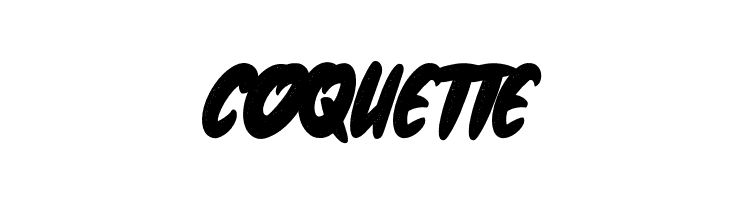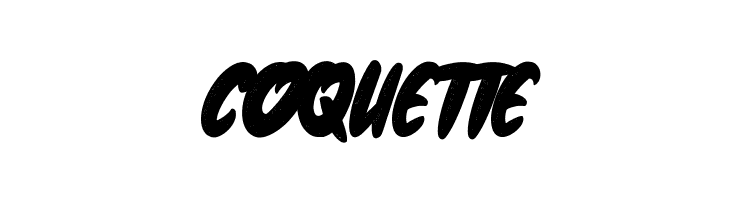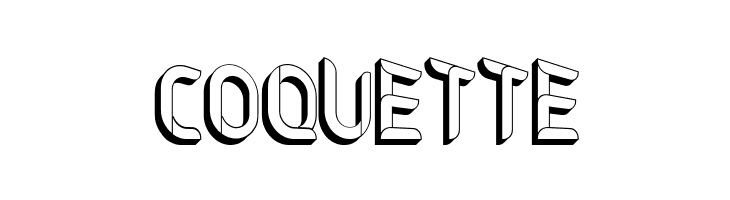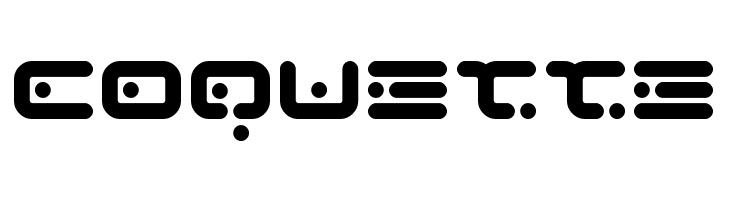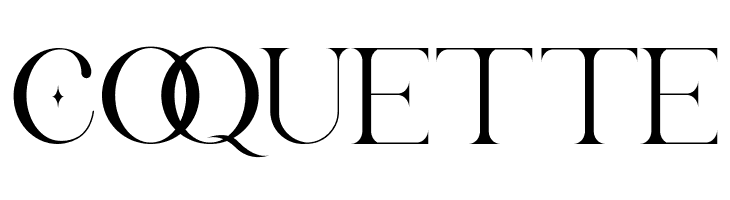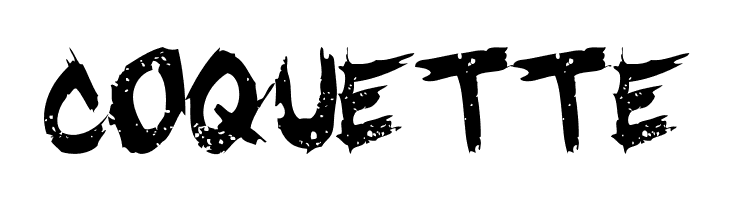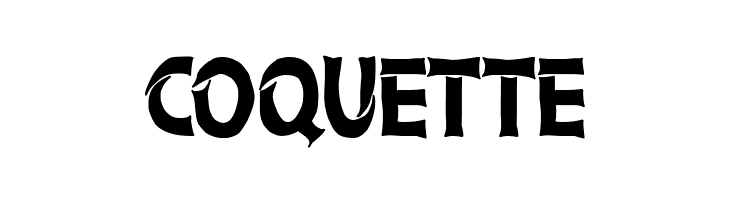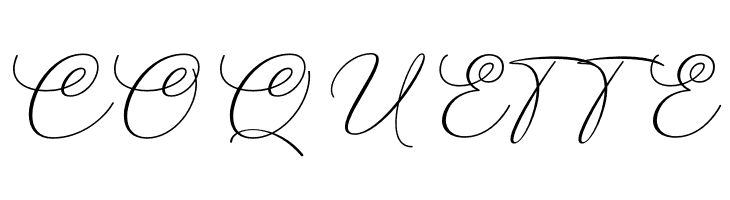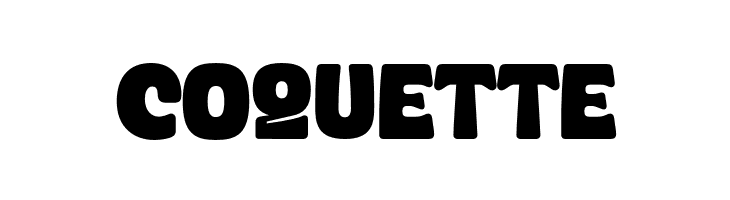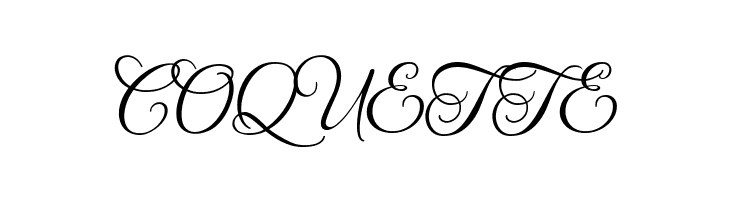
A bold, geometric stencil font with a digital, pixelated style.
A bold, 3D hollow font with a modern, geometric style.
A bold, decorative font with a three-dimensional shadow effect.
A clean, modern sans-serif font with uniform stroke width and balanced design.
Ornate, high-contrast script with decorative swashes.
A decorative, high-contrast script font with ornate swashes.
A bold, edgy font with sharp, angular edges and a distressed look.
A bold, handwritten-style font with dynamic, rounded characters.
A bold, dynamic script font with a handwritten feel.
A bold, distressed font with a grunge aesthetic and jagged edges.
A bold, distressed font with a grunge, graffiti-inspired style.
An elegant cursive font with decorative swirls and loops.
An elegant serif font with high contrast and artistic flourishes.
A bold, calligraphic symbol with dynamic, sweeping strokes.
Not a valid font; contains only repeated symbols.
A bold, classic serif font with strong contrast and pronounced serifs.
An elegant and decorative script font with intricate swashes and flourishes.
An elegant, flowing script font with interconnected characters and delicate strokes.
A modern, geometric sans-serif font with a clean and professional look.
A futuristic, geometric font with rounded edges and dot accents.
A bold, geometric, and playful font with a whimsical and artistic style.
A bold, cartoonish font with outlined, exaggerated curves for a playful look.
A bold, playful font with rounded, chunky characters and a retro-modern vibe.
A bold, impactful typeface with thick, block-like characters.
A bold, modern font with geometric shapes and consistent stroke width.